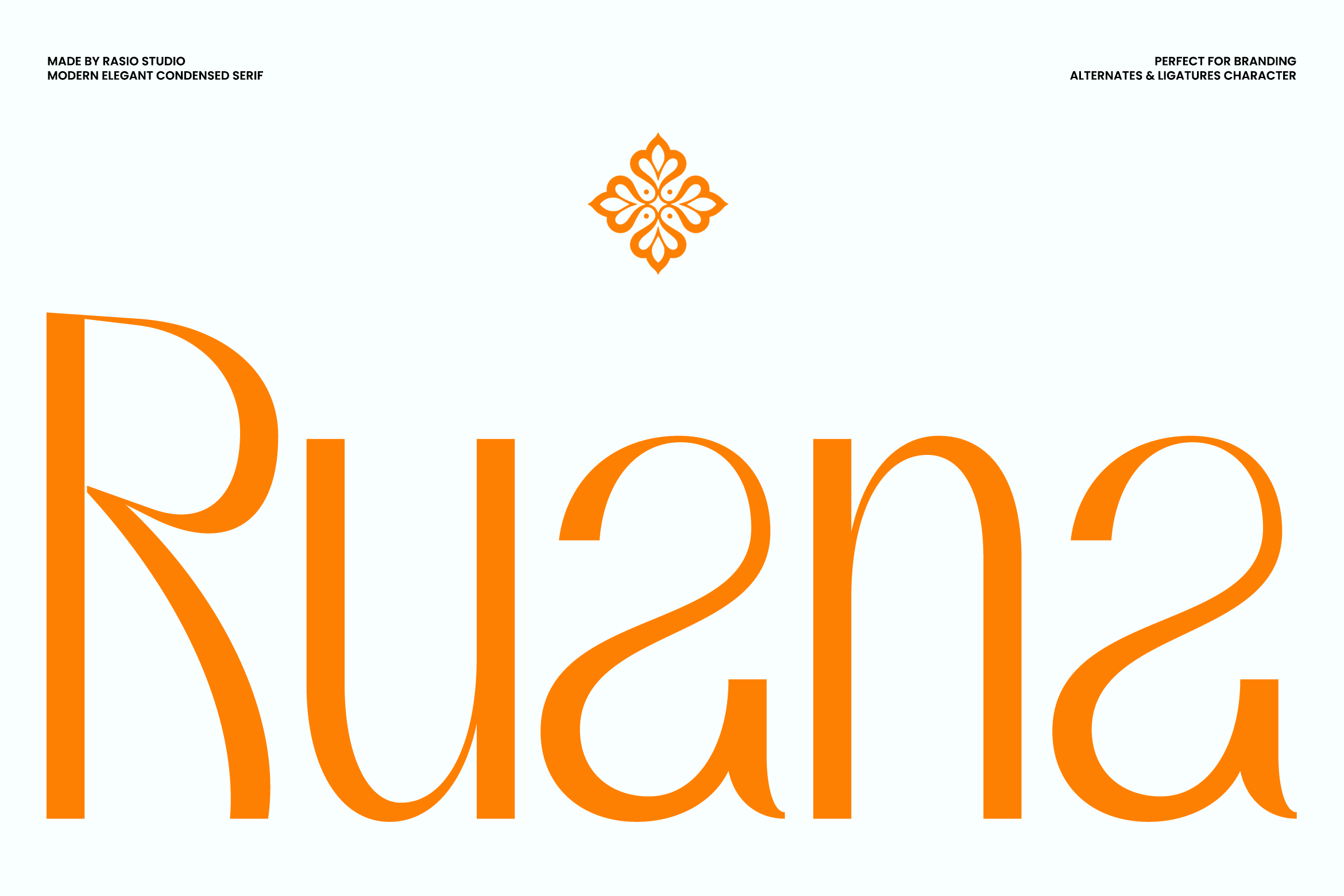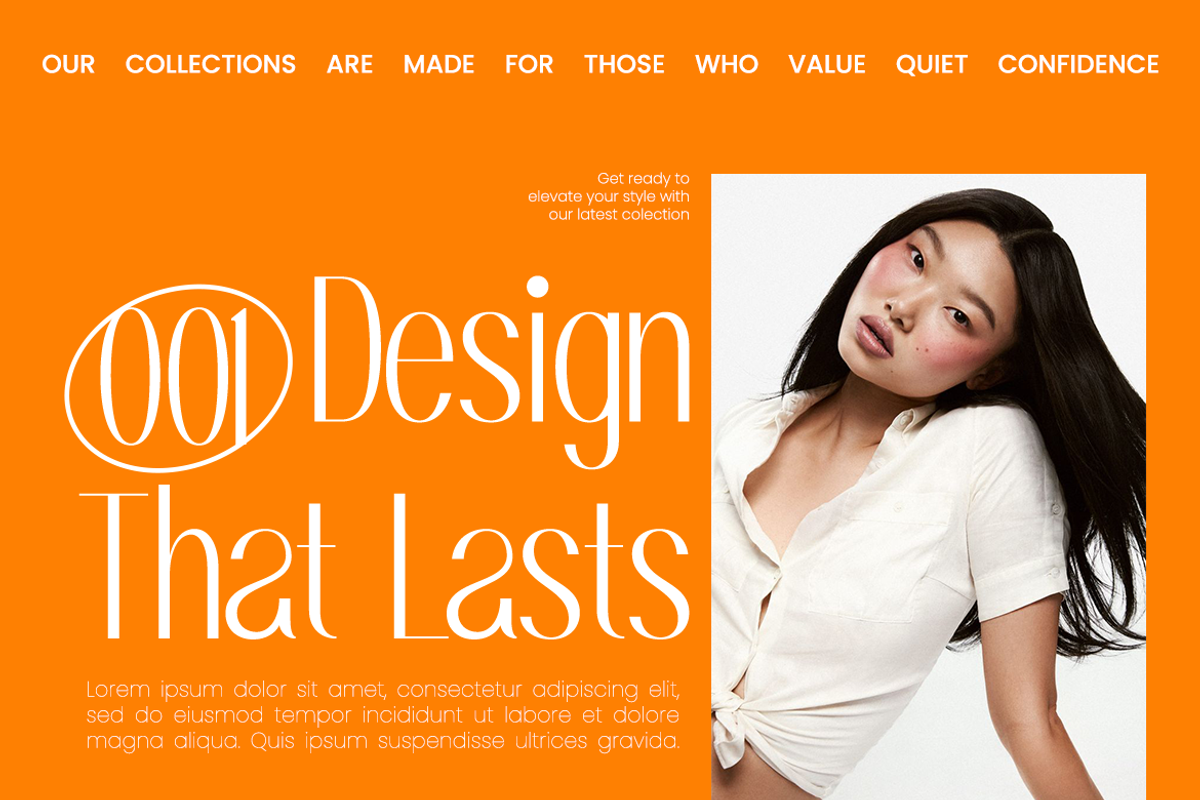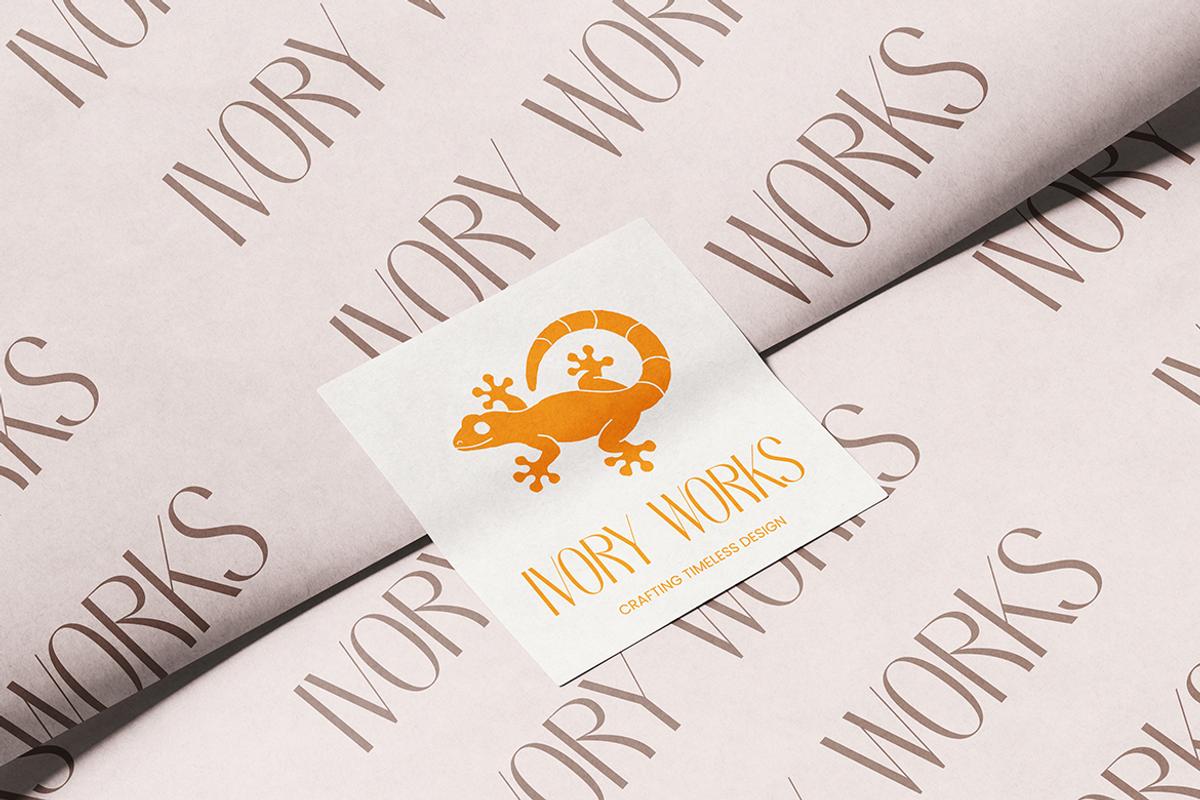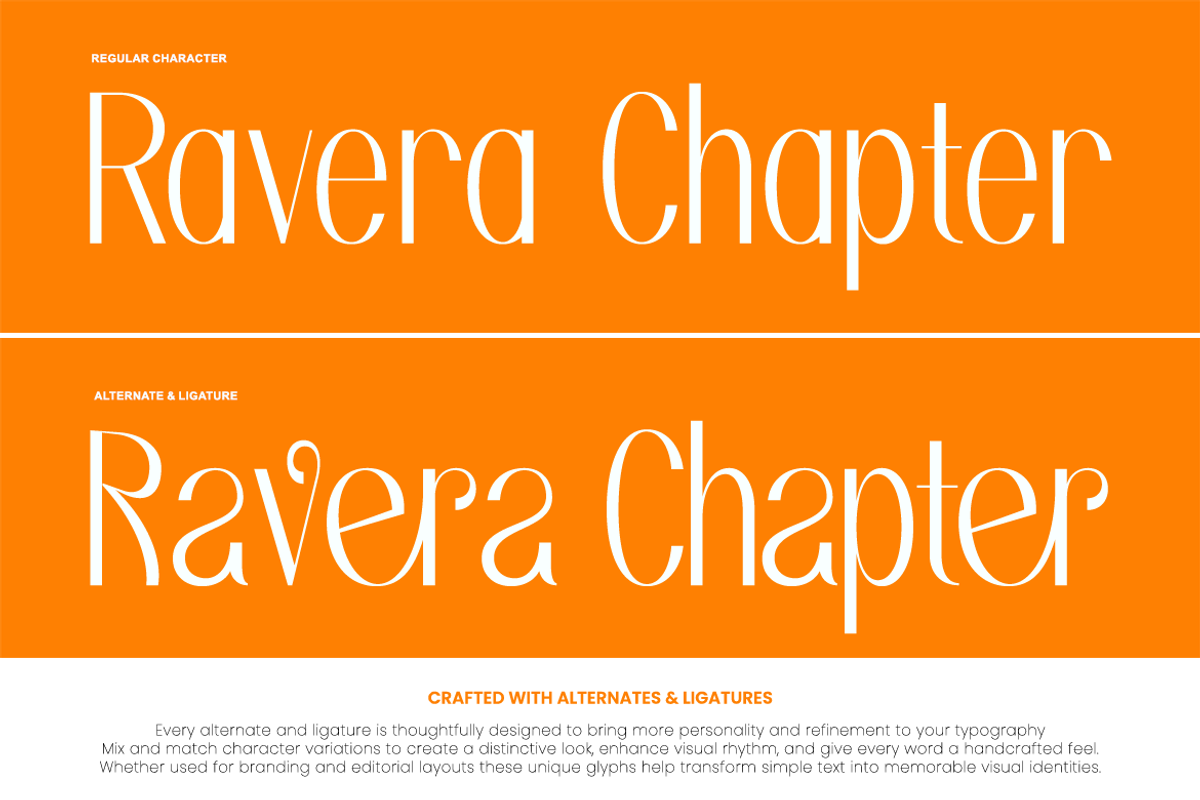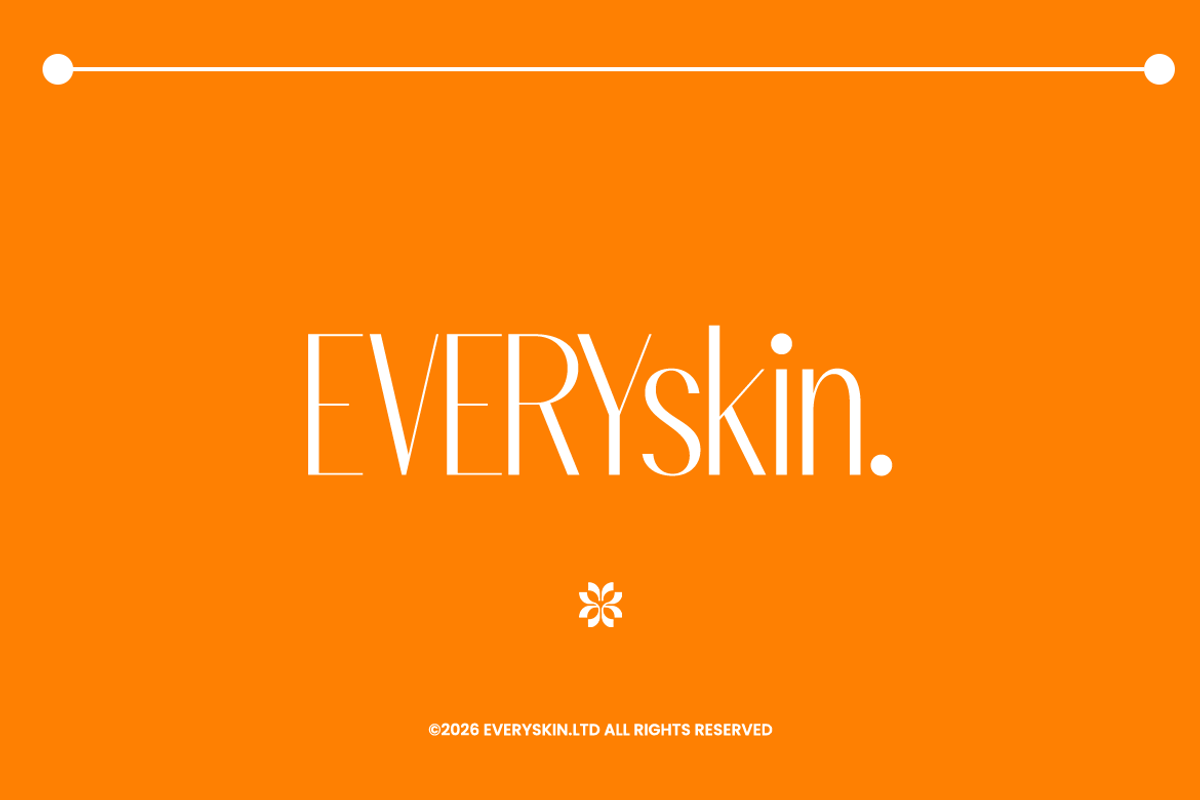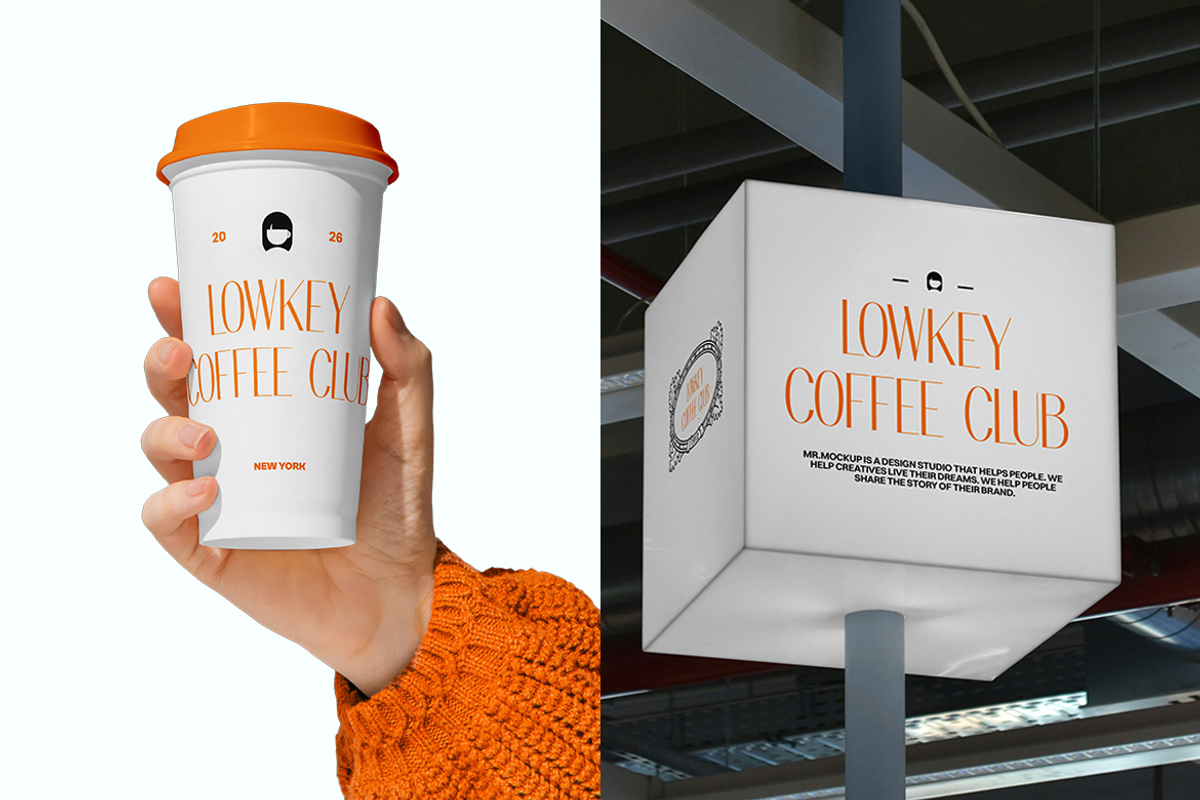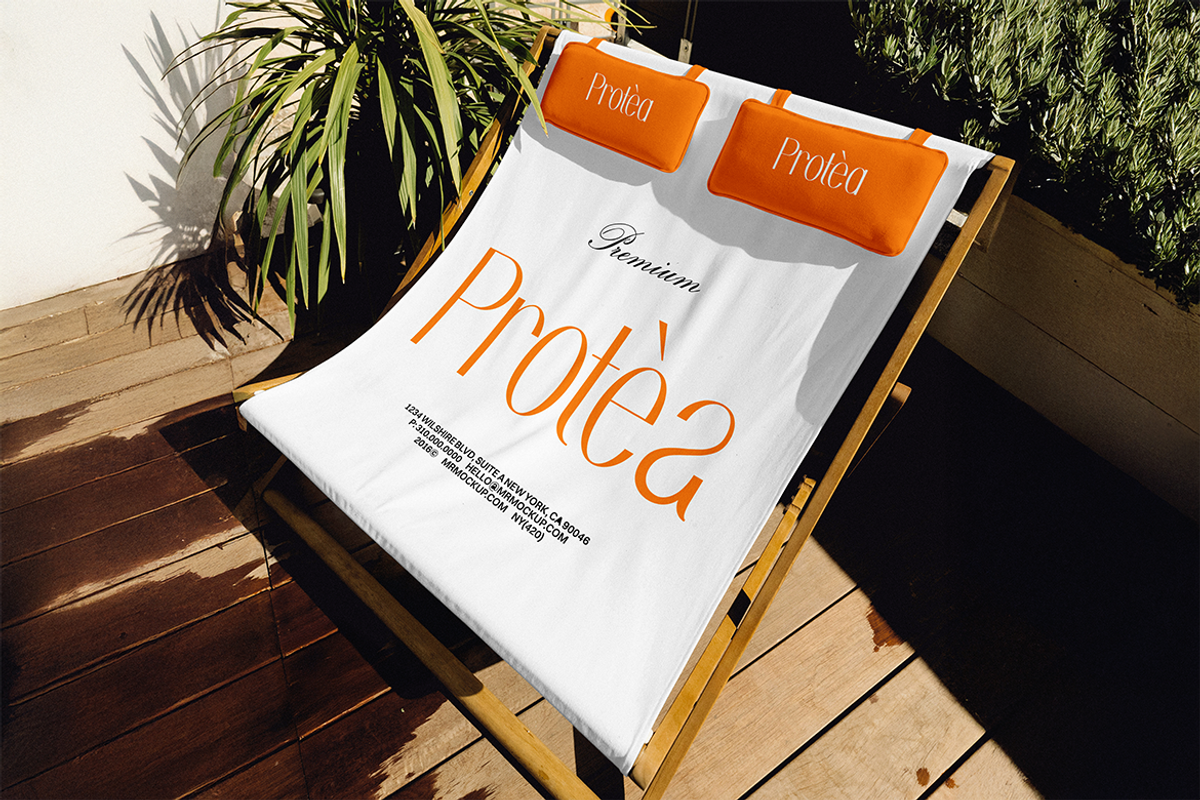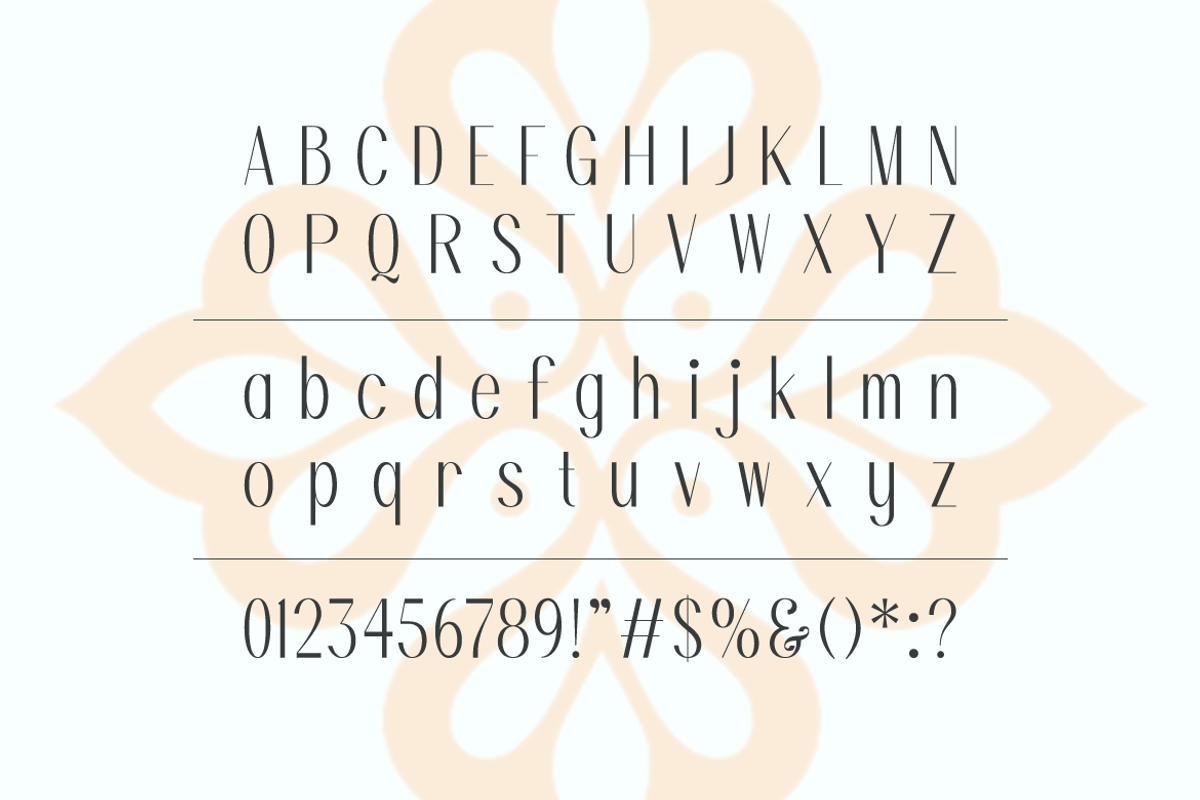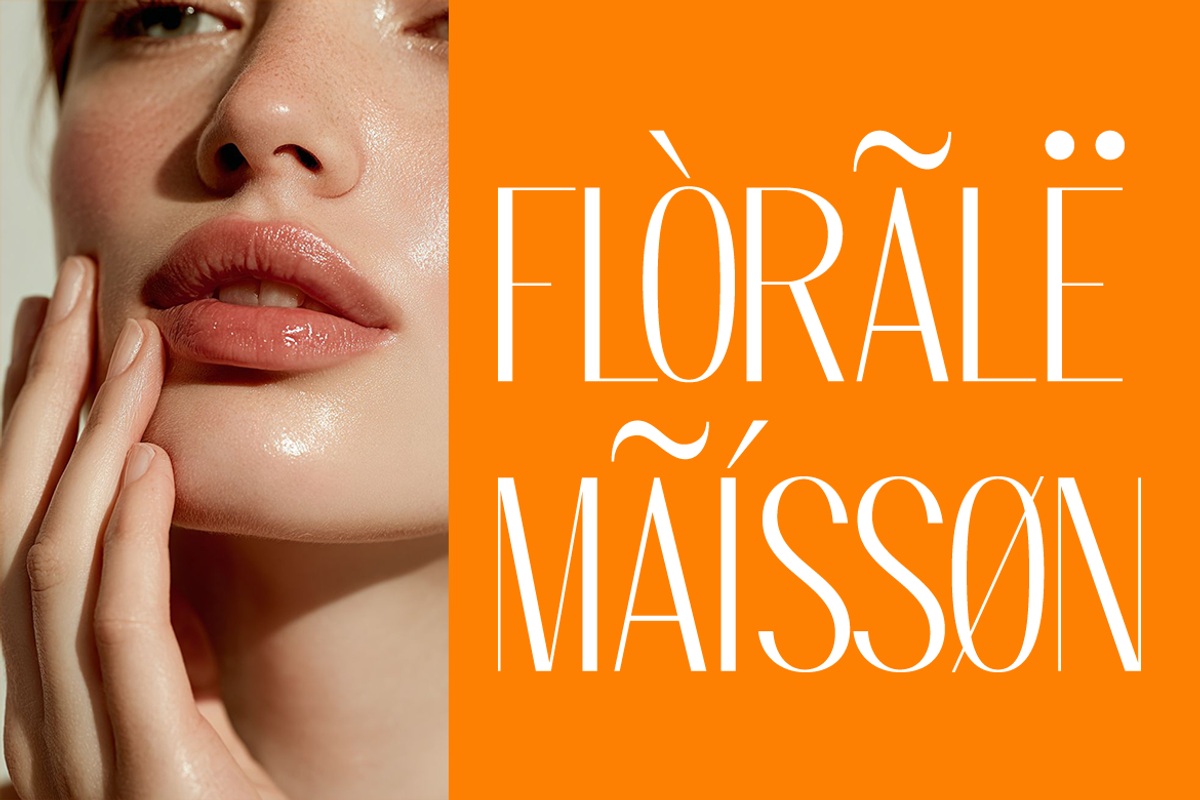
Ruana Modern Condensed Sans Font
Ruana Modern Condensed Sans Font is an elegant condensed serif typeface with a refined editorial character, narrow proportions, high-contrast strokes, and graceful curves. Its tall letterforms create a sophisticated vertical rhythm while maintaining a distinctive fashion-forward appearance, giving layouts a polished and expressive typographic presence. The typeface includes uppercase and lowercase characters, numerals, punctuation, symbols, stylistic alternates, ligatures, and decorative elements. The condensed structure allows longer words and brand names to occupy less horizontal space while preserving a luxurious visual impact. Its contrast between slender hairlines and stronger stems adds sophistication to both large display text and carefully composed supporting typography.
Ruana brings a graceful editorial quality to projects that require a refined and visually distinctive typographic style. Its narrow proportions work especially well when space is limited, while the dramatic contrast gives prominent words a strong visual hierarchy. Designers can use the primary characters for clean headlines and brand names, then introduce stylistic alternates or ligatures when creating custom logos, monograms, invitations, packaging details, or elevated editorial compositions.
Elegant condensed serif structure with tall, slender proportions
High contrast between refined hairlines and stronger vertical strokes
Distinctive curved terminals that add a graceful editorial character
Narrow letterforms designed to create a sophisticated vertical rhythm
Smooth curves and carefully balanced forms for polished typography
Luxury brand identities requiring a refined and distinctive typographic presence
Fashion editorials and magazine covers with dramatic, high-contrast headlines
Boutique logos and wordmarks enhanced by elegant proportions, decorative details
Beauty, fragrance, and jewelry packaging seeking a sophisticated visual direction
Wedding invitations and stationery with graceful lettering and expressive forms
Supports numerals, punctuation, and extensive symbol set